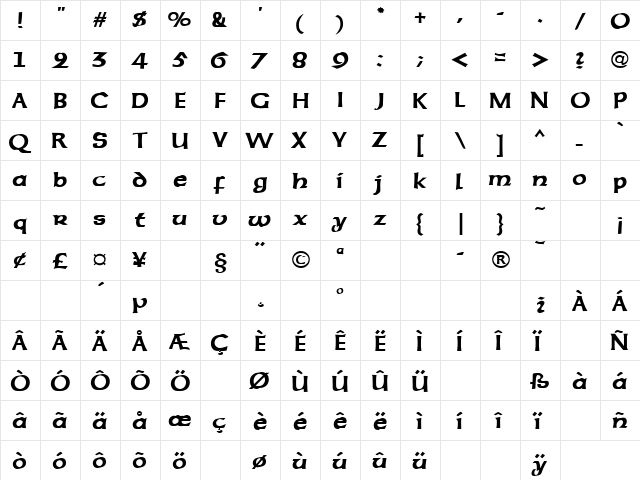
Sherwood Regular
Design Context for Sherwood Typeface
Sherwood echoes the hand-painted signage and woodblock typography of the American frontier, with a warm, rugged personality.
A natural fit for craft spirits, ranch branding, rodeo events, and Americana-inspired design work.
Font Pairing: Combine Sherwood with a simple slab or neutral sans — period-accurate companions reinforce the vintage feel without competing for attention.
Pro Tip: Use Sherwood for short, impactful bursts of text — it shines in poster headlines and product names rather than extended copy.